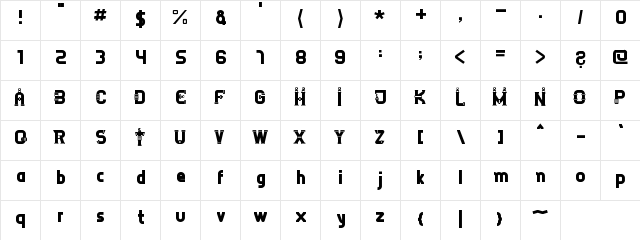
TESLAFONT Regular
Design Context for TESLAFONT Typeface
TESLAFONT offers clean, dependable letterforms without strong stylistic allegiance, making it a practical choice for designers who need flexibility.